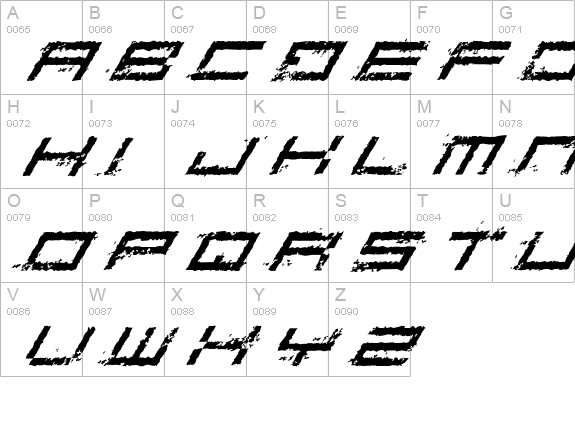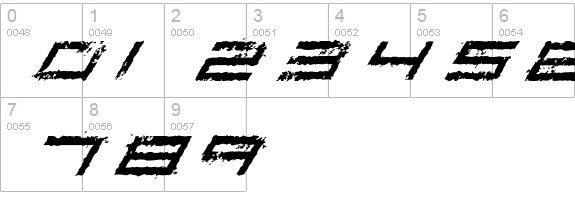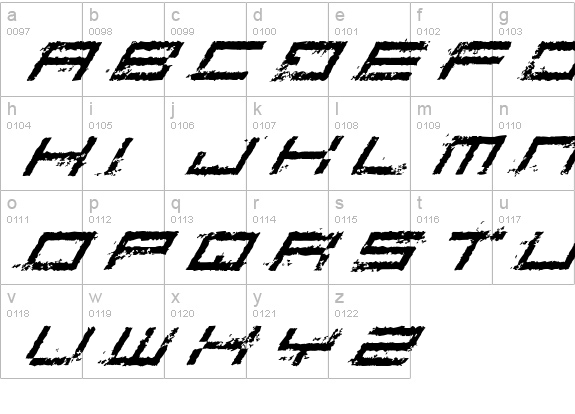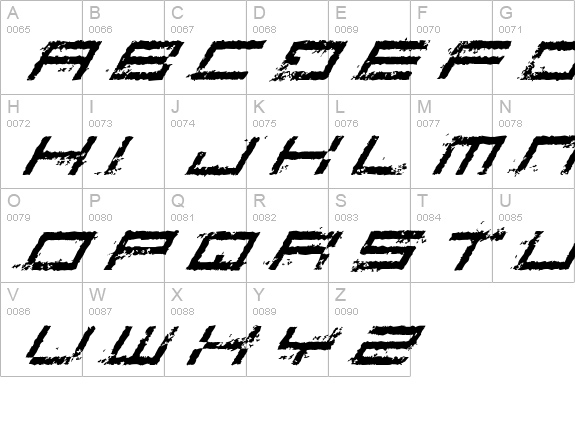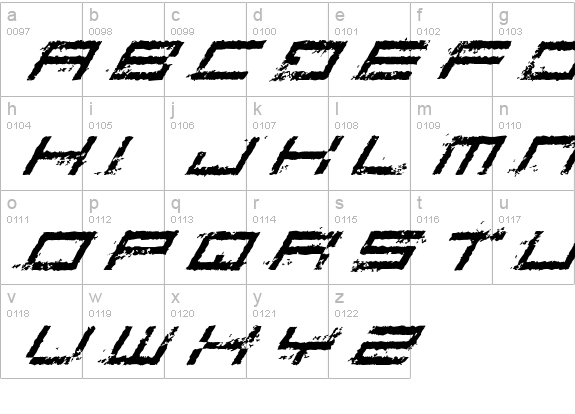
Rusting Robotica Italic Font Details
Rusting Robotica Italic is a distinctive, italic variant in the Rusting typeface family \xE2\x80\x94 well suited to design and typography projects.
Rusting Robotica Italic is a cutting-edge and futuristic font that brings a unique twist to any creative project. Its sleek and modern design is inspired by the concept of a robot that has been weathered and aged by time, resulting in a captivating blend of technology and decay. With its tilted and italicized letterforms, Rusting Robotica Italic adds a dynamic and energetic feel to your designs. Whether you are working on a sci-fi movie poster, a tech-inspired branding project, or a futuristic website, this font will undoubtedly make a bold statement. What sets Rusting Robotica Italic apart is its versatility. It can effortlessly be used for both display purposes and body text, thanks to its legibility and balanced proportions. It pairs well with other bold and modern fonts for a harmonious composition. One of the best things about Rusting Robotica Italic is that it is freely available to download at FontsMarket.com. You can enjoy its remarkable features and stunning design without spending a dime. So why wait? Enhance your designs with the mesmerizing charm of Rusting Robotica Italic today!